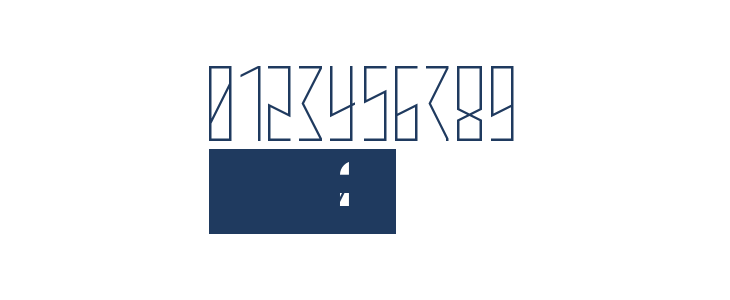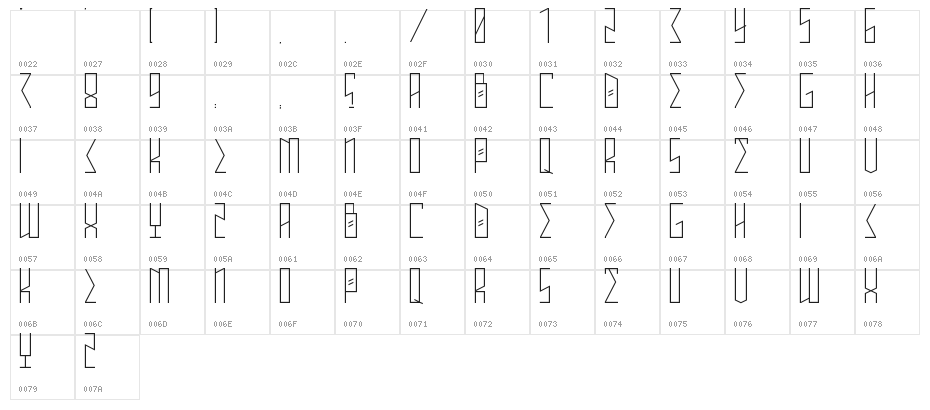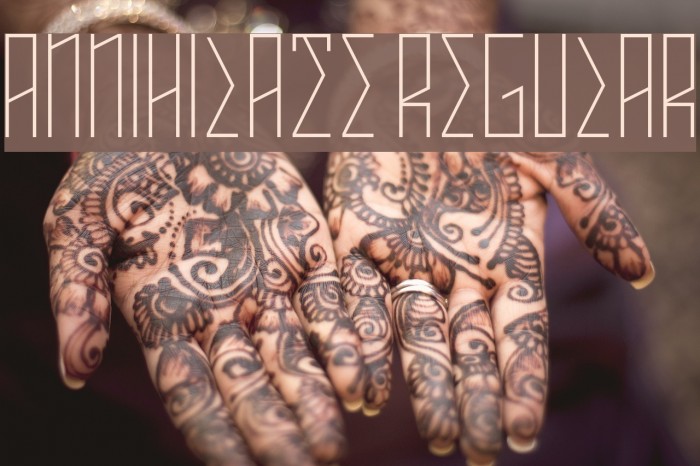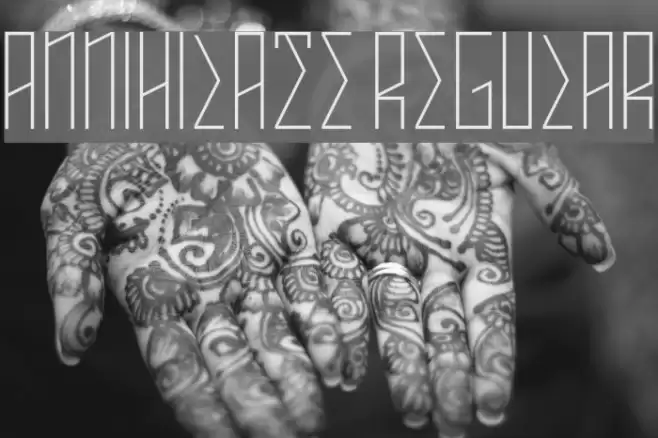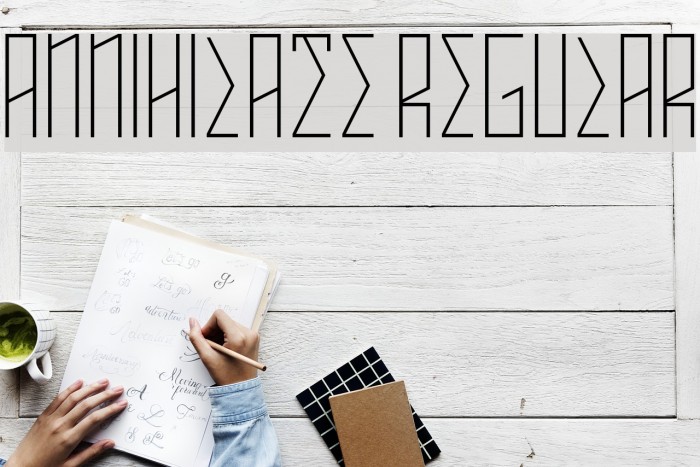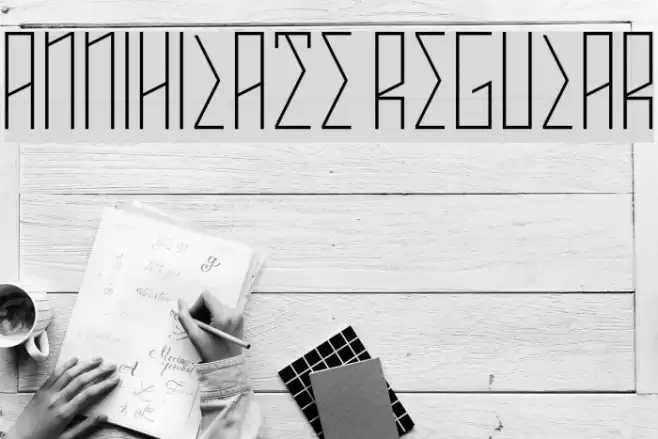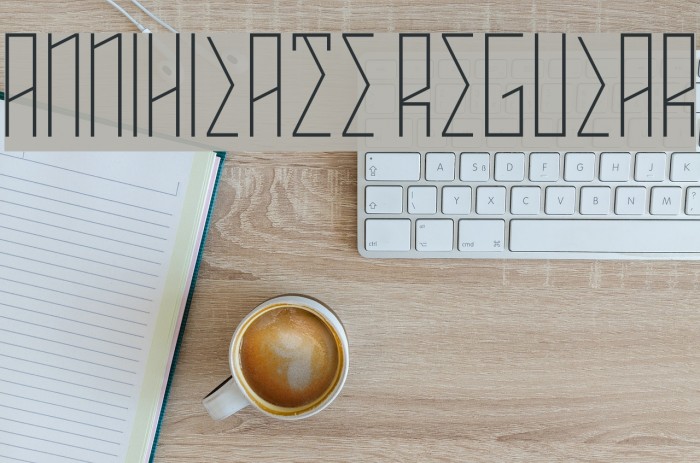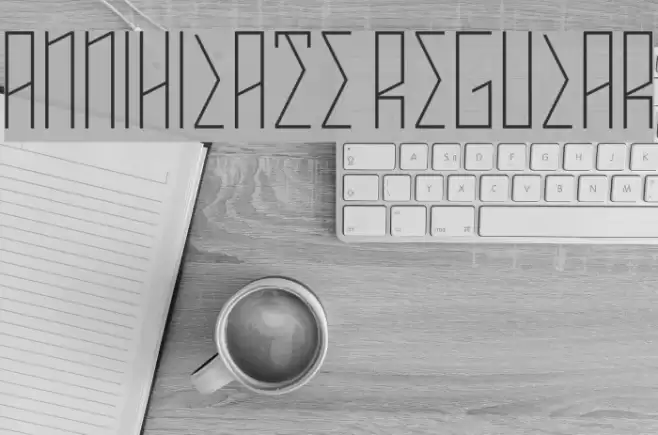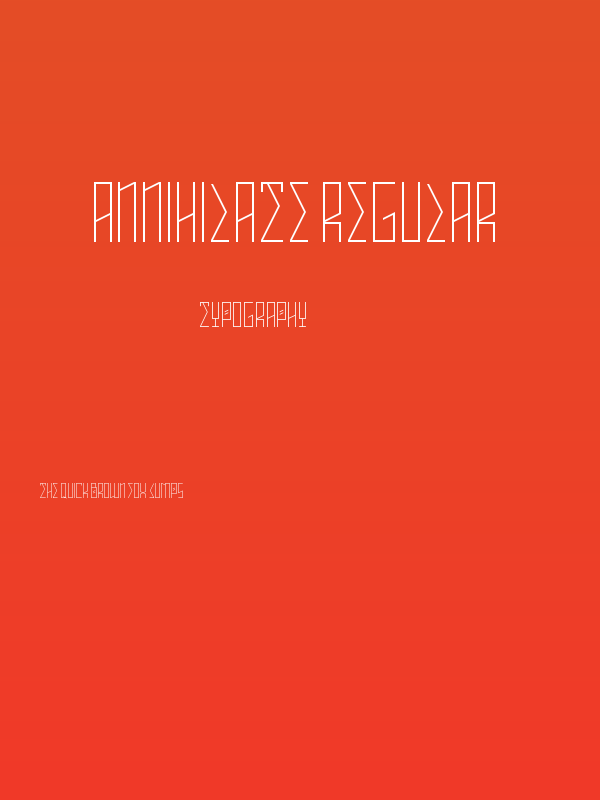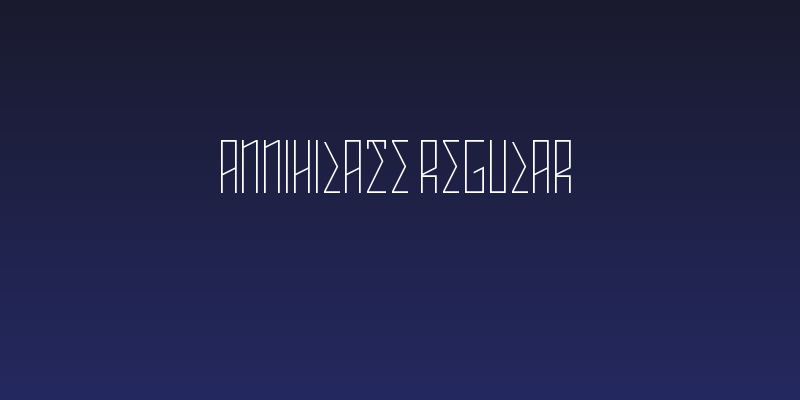
ANNIHILATE Regular Font
ANNIHILATE Regular Description
This font features a highly geometric and angular design, characterized by sharp edges and a futuristic aesthetic. Each character is constructed with straight lines and acute angles, creating a sense of precision and modernity. The uppercase and lowercase letters maintain a consistent style, with a uniform height and width that enhances readability while preserving the unique design. The numerals and special characters follow the same geometric pattern, ensuring a cohesive look across all glyphs. This font's distinctive style makes it ideal for projects that require a bold and contemporary appearance.
| Proposed Projects | Ideal for sci-fi themed designs, modern branding, tech-related projects, and digital interfaces. |